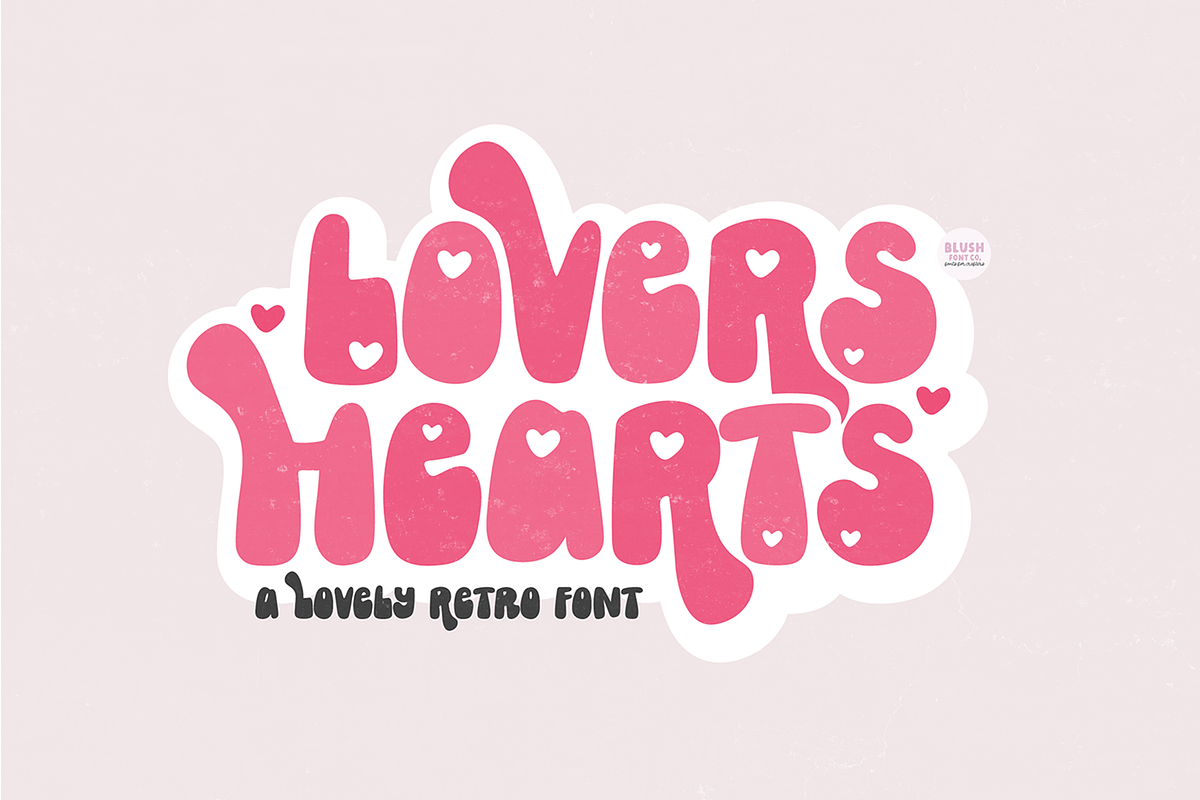
LOVERS HEARTS – A Retro Valentine Font is perfect for romantic Valentine's Day designs, retro love-themed materials, vintage wedding invitations, nostalgic greeting cards, romantic anniversary celebrations, love-inspired branding projects, sweetheart party decorations, retro date night graphics, romantic social media campaigns, vintage romance packaging, heartfelt gift designs, and charming love communications.
LOVERS HEARTS – A Retro Valentine Font is exciting because it captures the timeless romance and nostalgic charm of vintage Valentine's Day celebrations through its playful heart-inspired letterforms that embody the innocent sweetness and retro glamour of classic love stories. This delightful typeface features whimsical character shapes with heart motifs and retro styling that evoke the golden age of romantic cards, love letters, and the charming aesthetics of mid-century romance culture. The font's romantic aesthetic creates instant emotional connections with audiences who appreciate vintage love stories, nostalgic romance, and the enduring appeal of heartfelt expressions.
LOVERS HEARTS – A Retro Valentine Font includes comprehensive font families: Regular Romance Style, Bold Sweetheart Weight, Light Gentle Touch, Medium Love Balance, Italic Flowing Hearts, Condensed Cute Format, Extended Valentine Width, Heart Decorative Version, Shadow Romance Effects, and Special Love Symbols, providing complete solutions for romantic and Valentine-themed design projects that celebrate love, nostalgia, and the timeless beauty of romantic expression.
This romantic typography solution transforms ordinary communications into charming love experiences through its authentic retro Valentine aesthetic and heart-inspired design language. LOVERS HEARTS – A Retro Valentine Font Free Download enables designers and romantic brands to access premium Valentine typography that instantly adds romance, nostalgia, and vintage charm to any creative project. The font's carefully crafted heart elements ensure authentic romantic character while maintaining excellent readability and distinctive Valentine presence.
Wedding planners, gift companies, and romantic businesses trust LOVERS HEARTS – A Retro Valentine Font for its ability to communicate love, nostalgia, and romantic charm to audiences seeking authentic Valentine experiences and vintage romance aesthetics. The typeface's charming construction performs beautifully across various applications, from intimate romantic communications to large-scale Valentine branding campaigns. Its extensive character support includes multilingual capabilities and heart-themed design elements that enhance romantic brand presentations.
The creative inspiration behind LOVERS HEARTS – A Retro Valentine Font draws from vintage Valentine cards, classic love stories, and the timeless tradition of romantic expression that continues to bring hearts together across generations. This romance-focused approach creates a font that feels genuinely nostalgic while maintaining contemporary appeal across different romantic contexts and Valentine brand expressions.
Whether creating Valentine's Day materials, romantic wedding designs, or love-themed marketing campaigns, this retro Valentine font delivers exceptional results that capture the essence of timeless romance and vintage charm. Download LOVERS HEARTS – A Retro Valentine Font today and discover how premium romantic typography can transform your design projects into heartfelt expressions of love, nostalgia, and the vintage beauty that defines the most cherished romantic communications and Valentine celebrations.